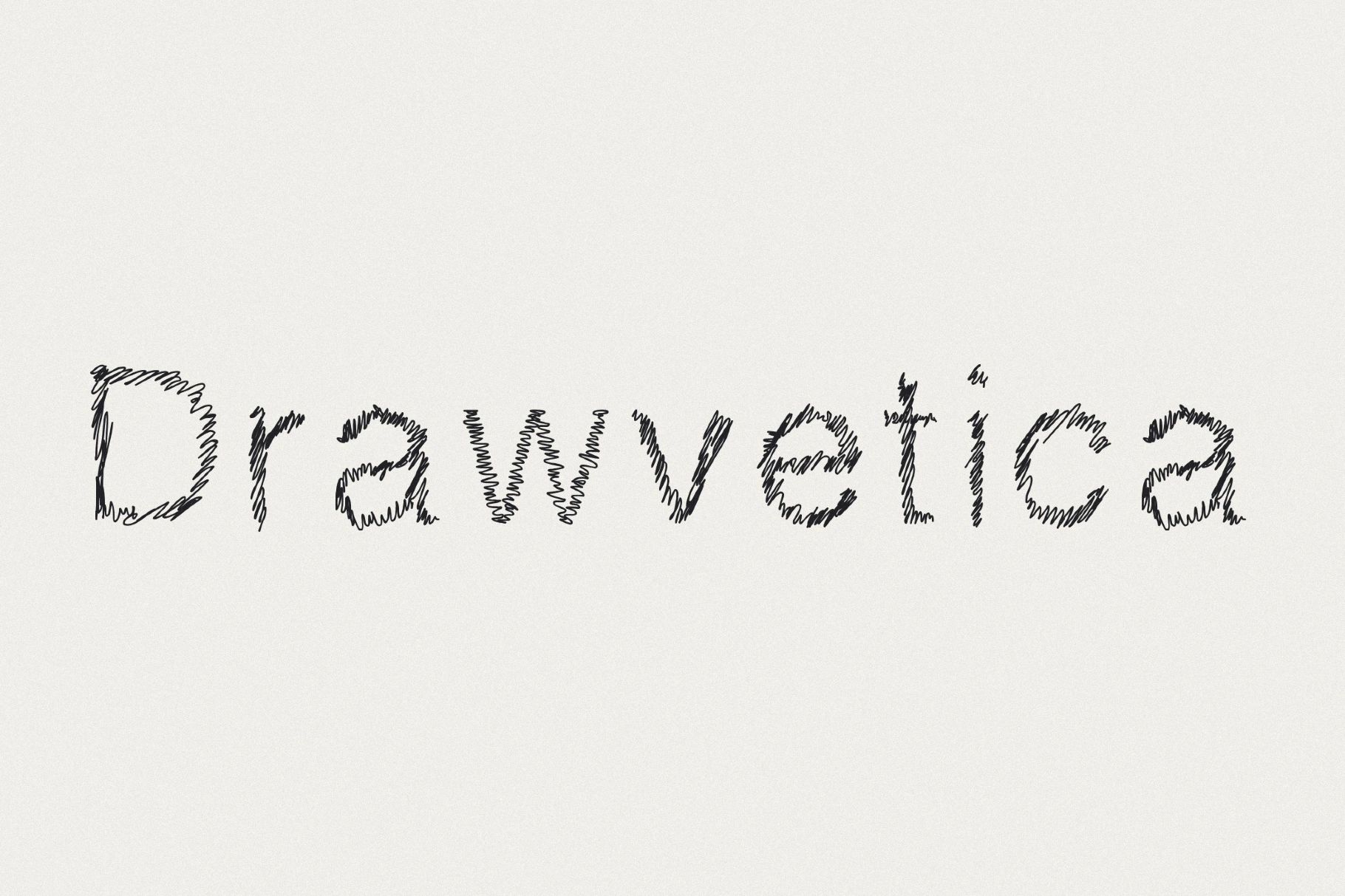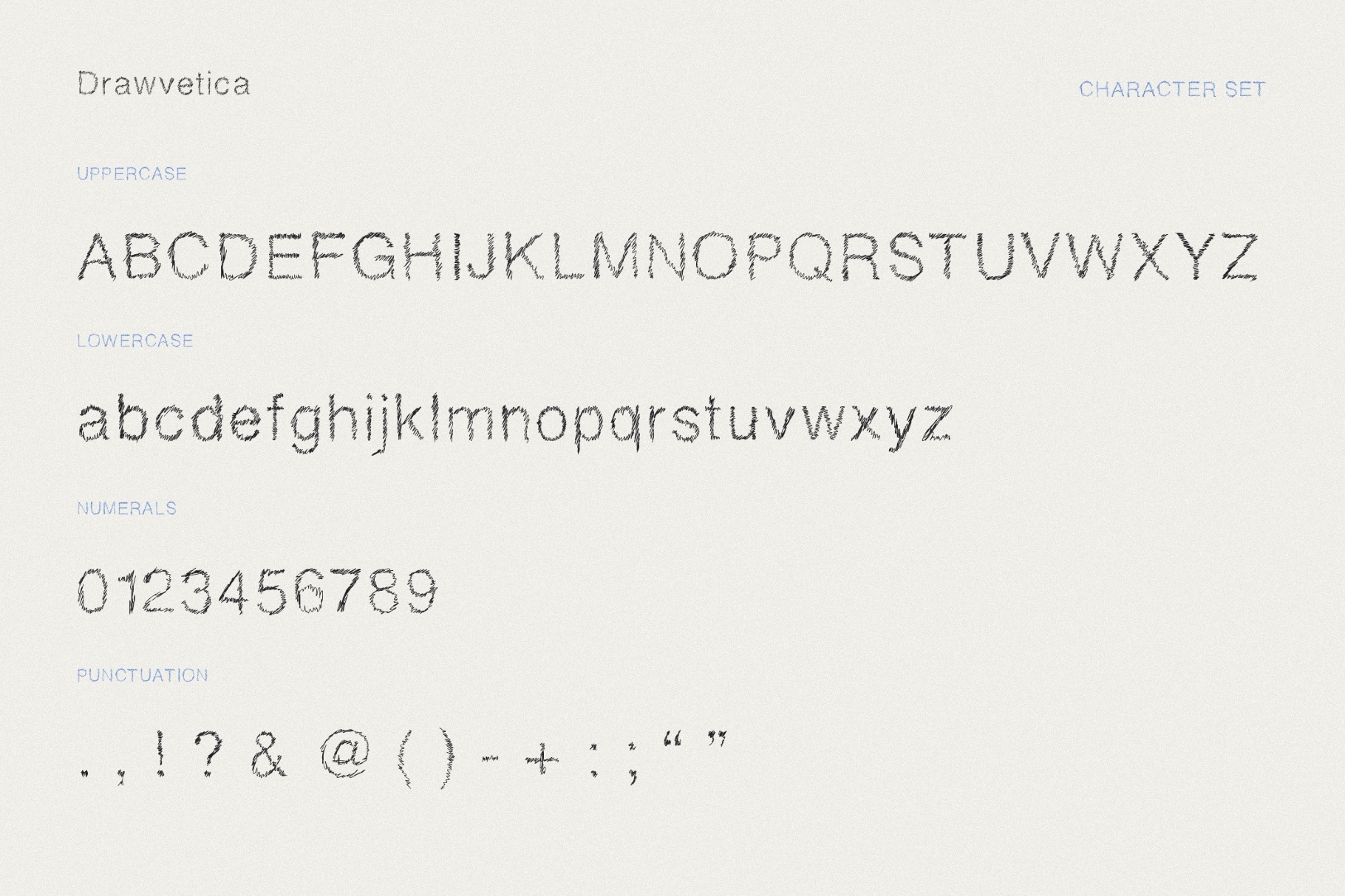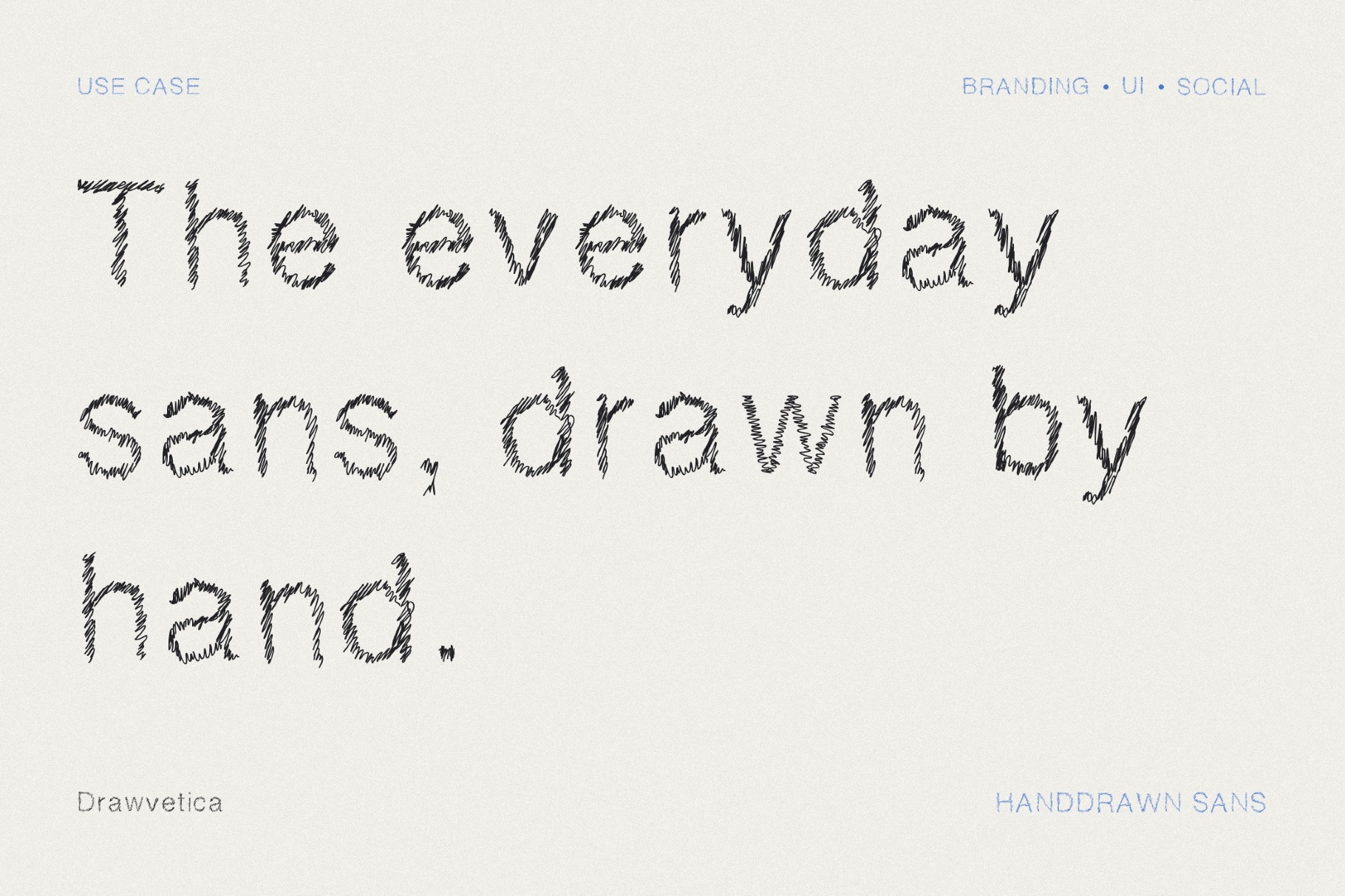
Drawvetica Mini Font
DrawveticaMini
A clean sans-serif base becomes wonderfully restless in Drawvetica Mini. Instead of neutral shapes, its grunge letters are rebuilt from scribbled strokes that look quick and anxious. The handmade texture works well for workshop posters, creative portfolios, classroom graphics, indie zines, children’s projects, app mockups, and social media headers.